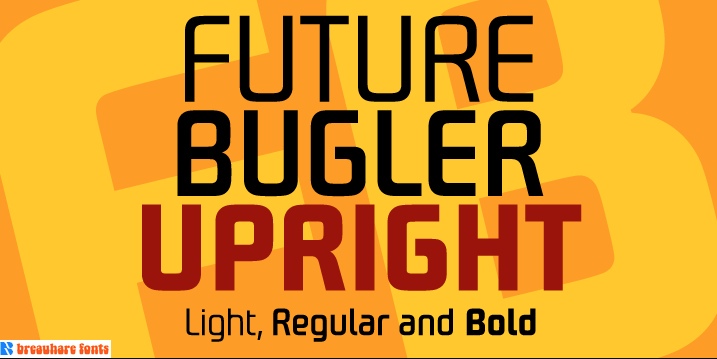
Future Bugler Upright Font
Future Bugler Upright Font is perfect for futuristic branding projects, sci-fi movie titles, tech startup logos, space-themed editorial layouts, cyberpunk game interfaces, electronic music album covers, digital art installations, and cutting-edge advertising campaigns. This dynamic typeface works exceptionally well in both digital applications and print media where technological advancement and forward-thinking innovation are key visual elements.
What makes Future Bugler Upright Font so exciting is its striking combination of geometric precision and futuristic aesthetics that instantly communicates technological progress and space-age sophistication. The font features bold, upright letterforms with sharp angles, streamlined curves, and distinctive character details that evoke visions of tomorrow's design landscape. Its commanding presence and sci-fi inspired personality make it perfect for brands seeking to establish themselves as pioneers, innovators, and leaders in technological advancement while maintaining strong visual impact and excellent readability.
The Future Bugler Upright Font family includes multiple weight variations from regular to ultra-bold, along with condensed styles and special futuristic alternates. Each style maintains the typeface's space-age character while offering comprehensive character sets including digital-inspired numerals, tech-focused punctuation marks, and special symbols designed to enhance futuristic and scientific communications across global markets.
This remarkable typeface represents the perfect convergence of tomorrow's design vision and today's practical typography needs. Whether you're developing aerospace brand identities, creating science fiction marketing materials, or designing tech conference presentations, Future Bugler Upright Font Free Download delivers the innovative energy and versatility needed to communicate cutting-edge concepts effectively. The font's futuristic aesthetic makes it particularly effective for technology companies, space exploration organizations, gaming studios, and brands positioning themselves at the forefront of digital transformation.
The meticulously engineered letterforms and optimized digital rendering in Future Bugler Upright Font ensure powerful visual performance while maintaining clear communication across all platforms and applications. Its bold presence makes it ideal for headlines, logos, and display applications where its full futuristic character can create unforgettable impressions and establish immediate association with innovation and technological excellence.